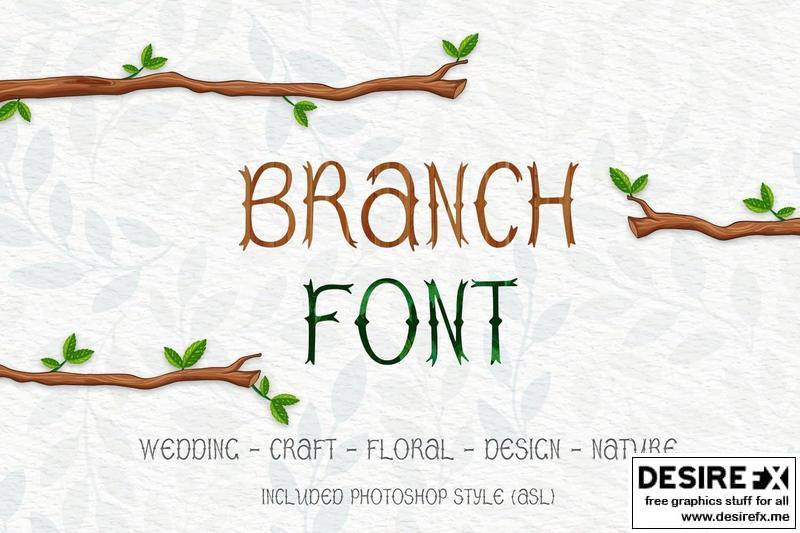
Branch Font 45M2R6J
The Branch Font is a fun display font, built upon the wood theme. It works great for casual purposes, nature-related projects, or environmental topics.